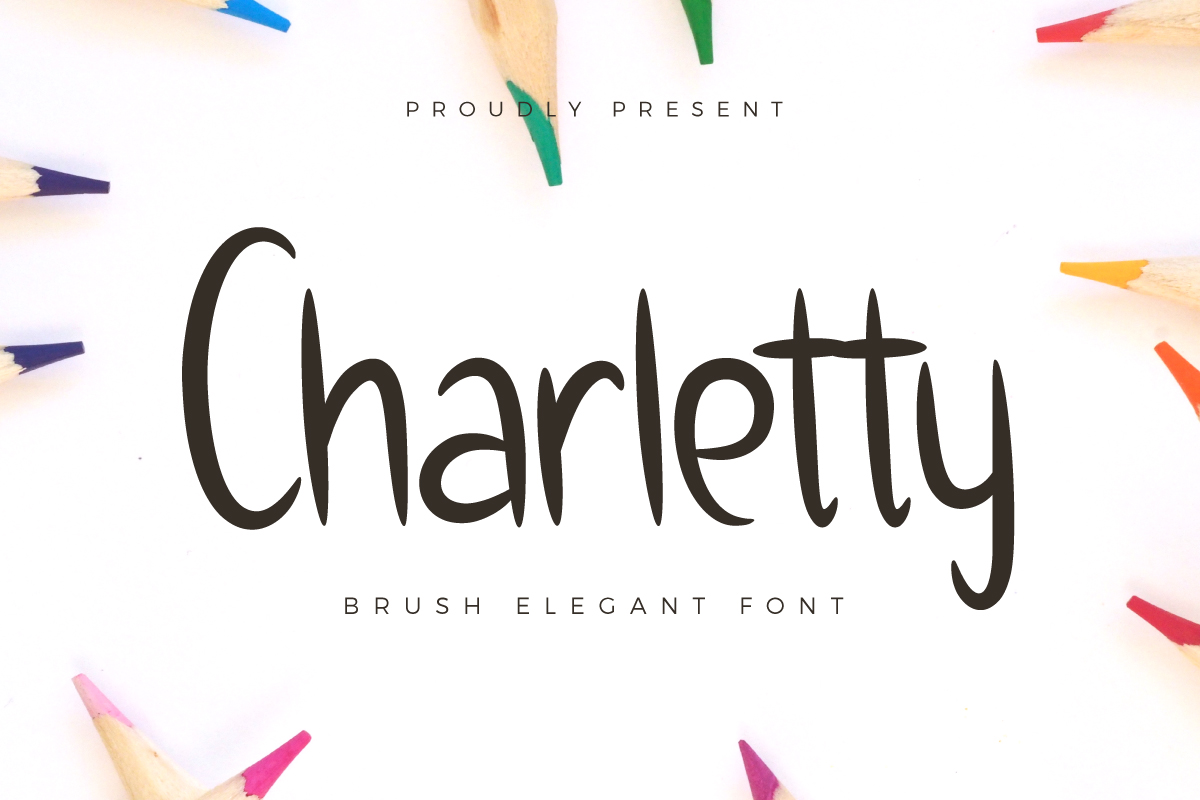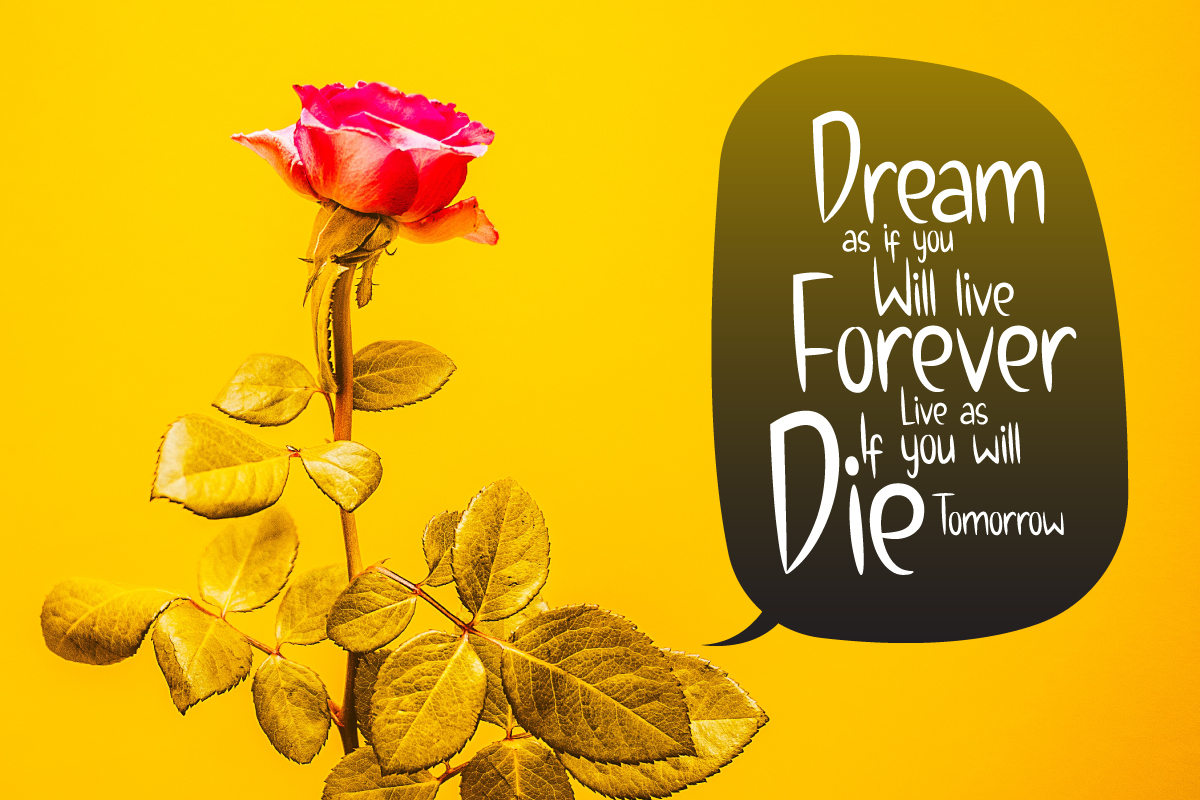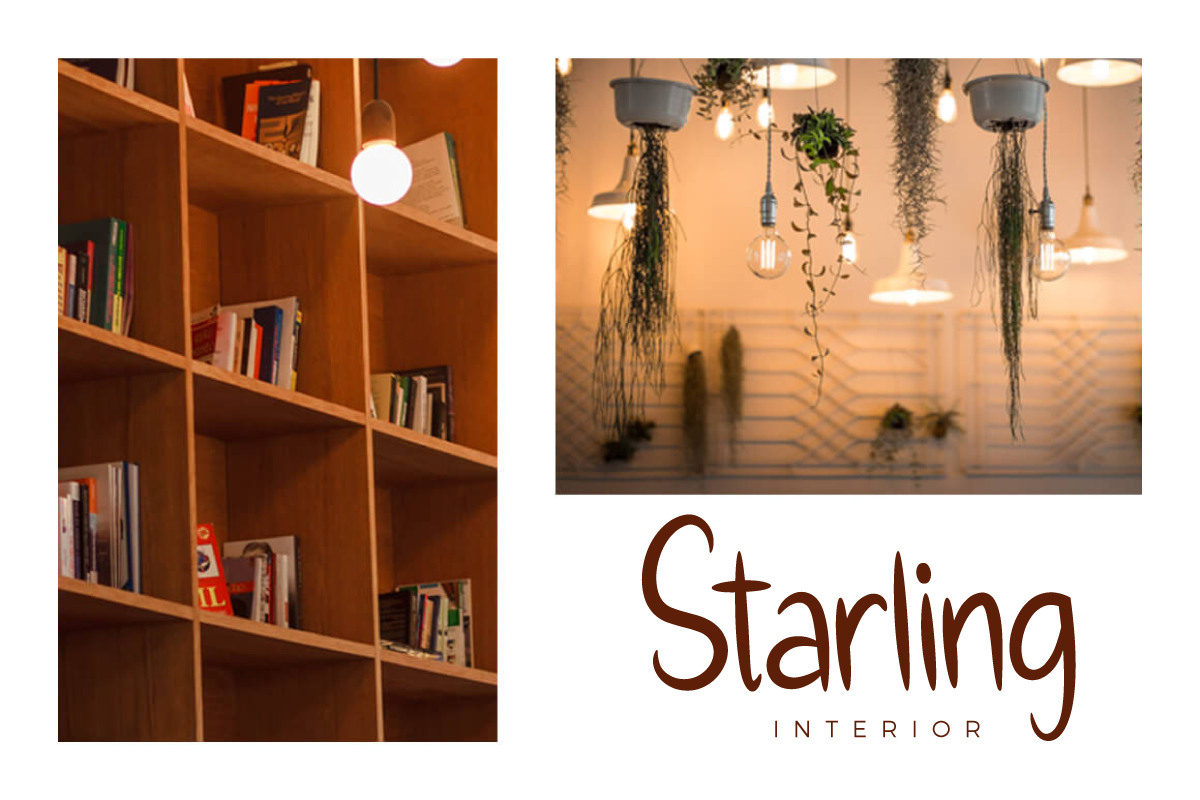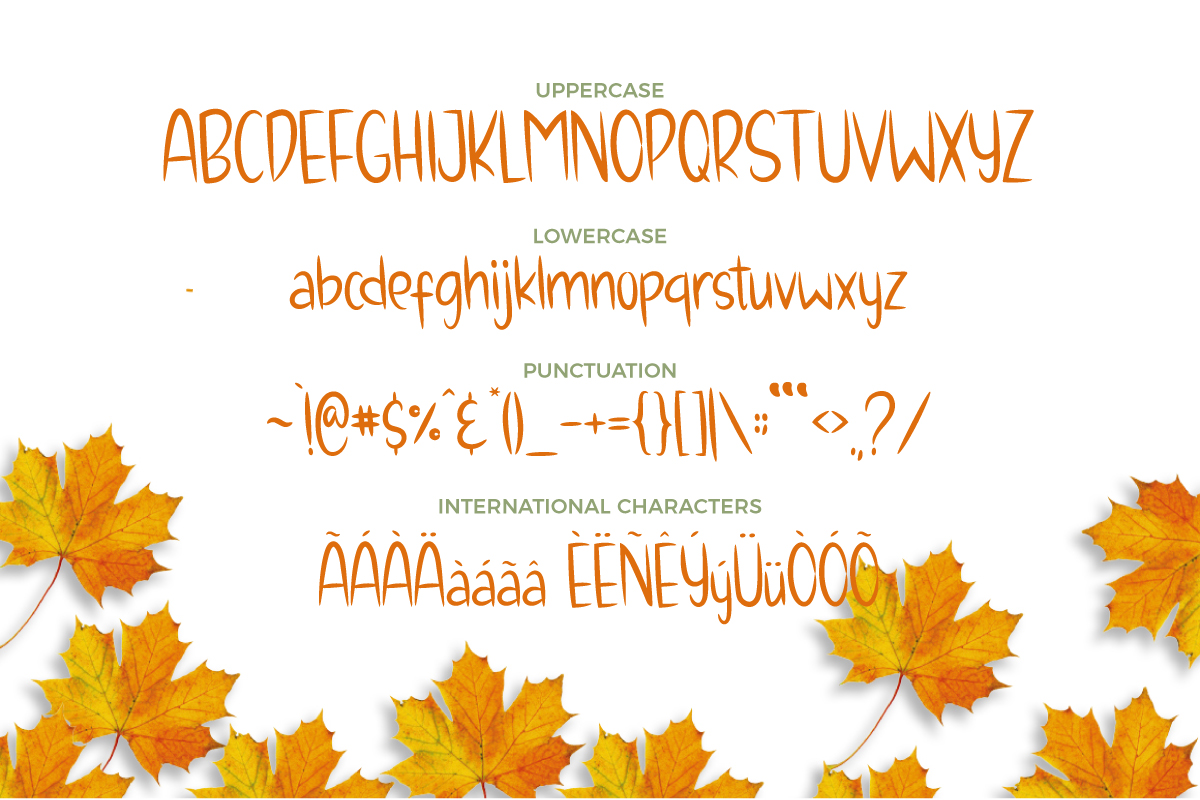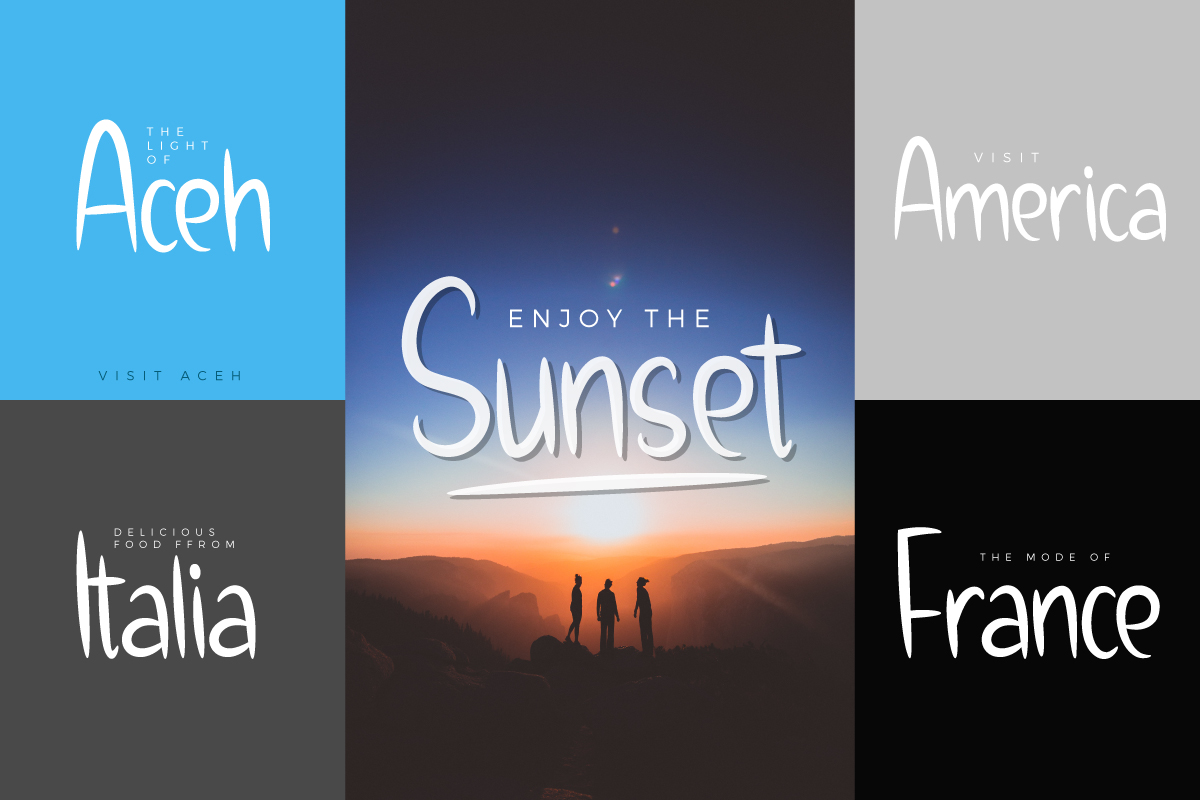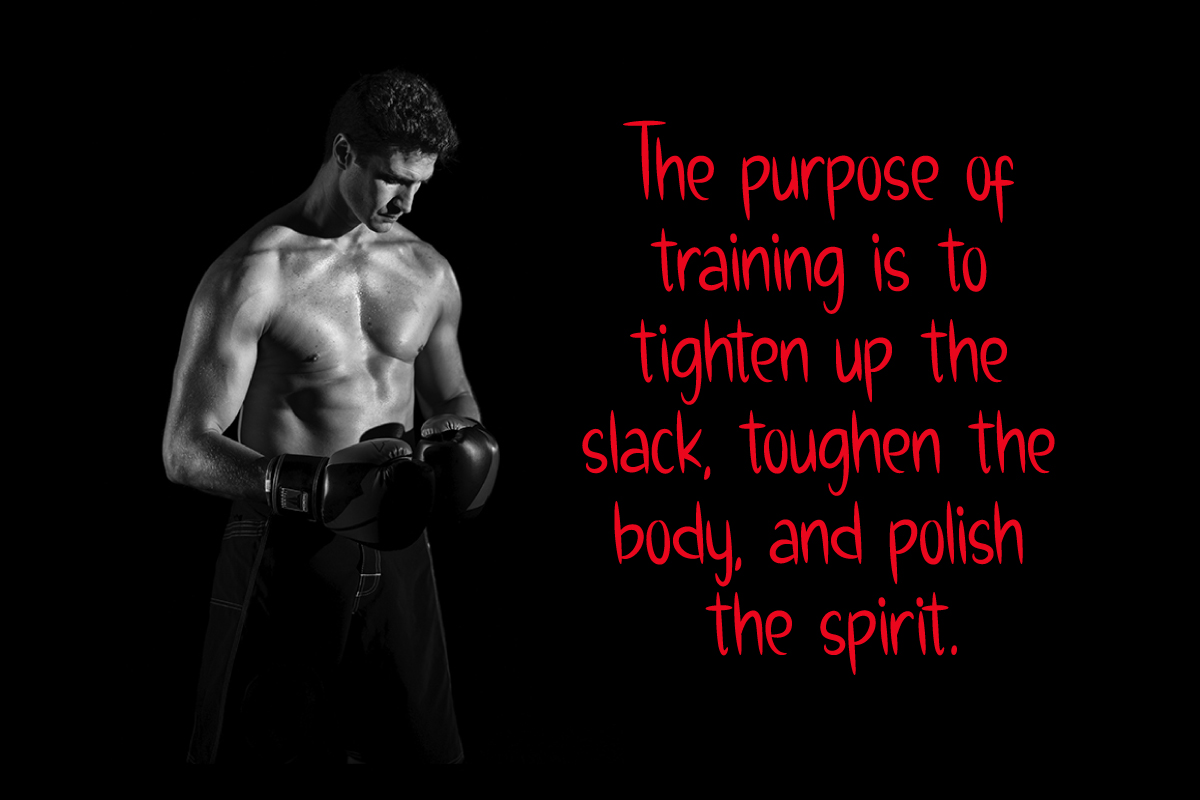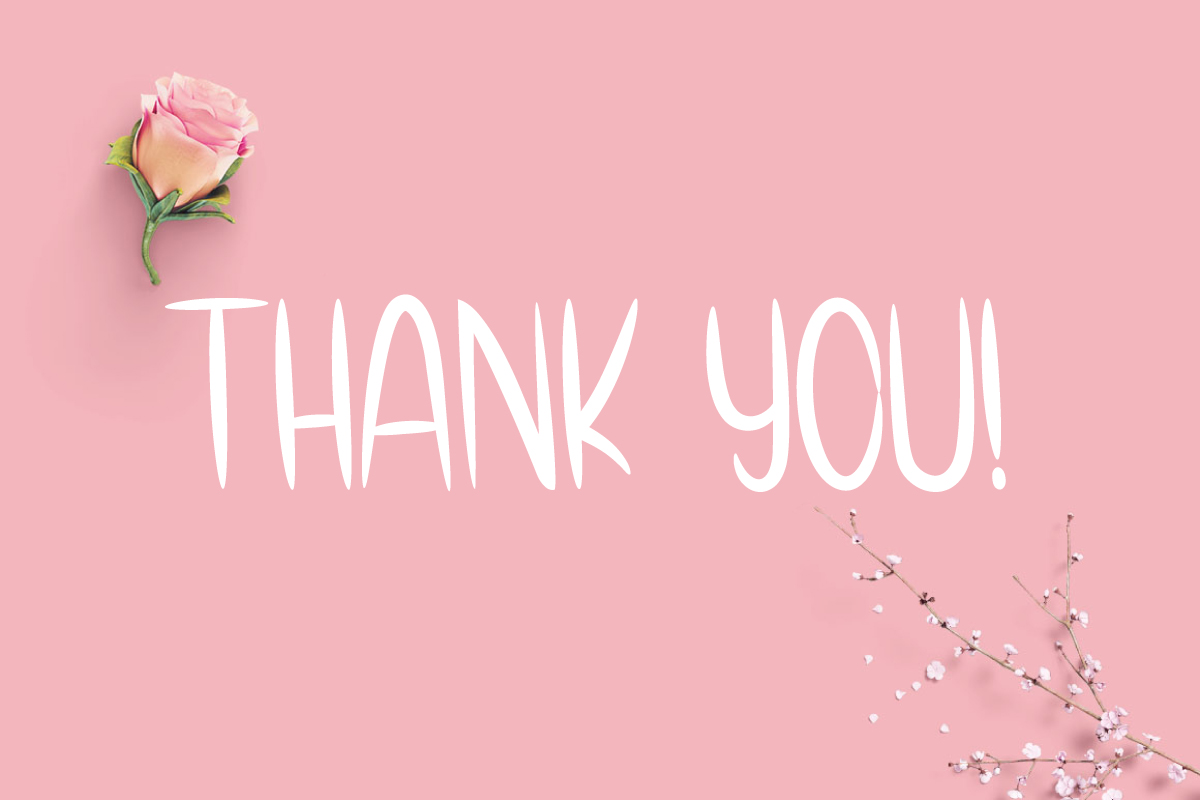
Charletty Font
About Charletty Font
Charletty is a fun and fresh handwritten font, perfectly suited for adding a unique and carefree charm to your designs. This handwritten font is crafted as a sans serif, and is as legible as it is appealing.